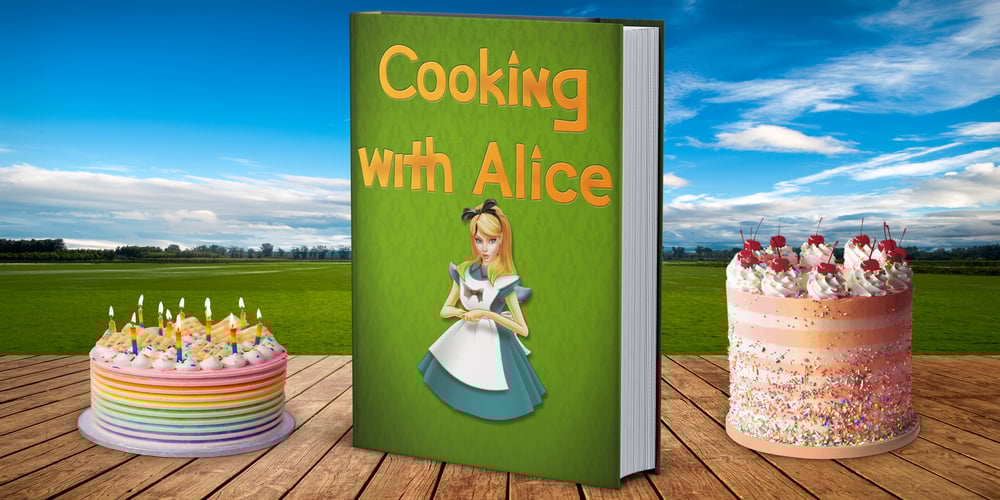
DT Squished Stuff Font Family was designed by Scott Spensley and published by Dragon Tongue Foundry. DT Squished Stuff contains 1 styles and family package options. DT Squished Stuff is a font made for fun. This uneven simple blocky sans-serif font has wonky letters that adapt automatically and change shape to fit against their neighbours.Use with contextual ligatures turned on to allow Squished Stuff to operate correctly. If a particular letter decides to do something that you don’t want it to, turn ‘contextual ligatures’ off for that letter. But do remember to turn it back on afterwards. This font lives and breathes when ‘contextual ligatures’ are turned on.Also, there are easter eggs and quirky surprises hidden inside.Watch it squish and move to fit together.This is a wacky, crazy, fun, mad, party, toonified font.Enjoy